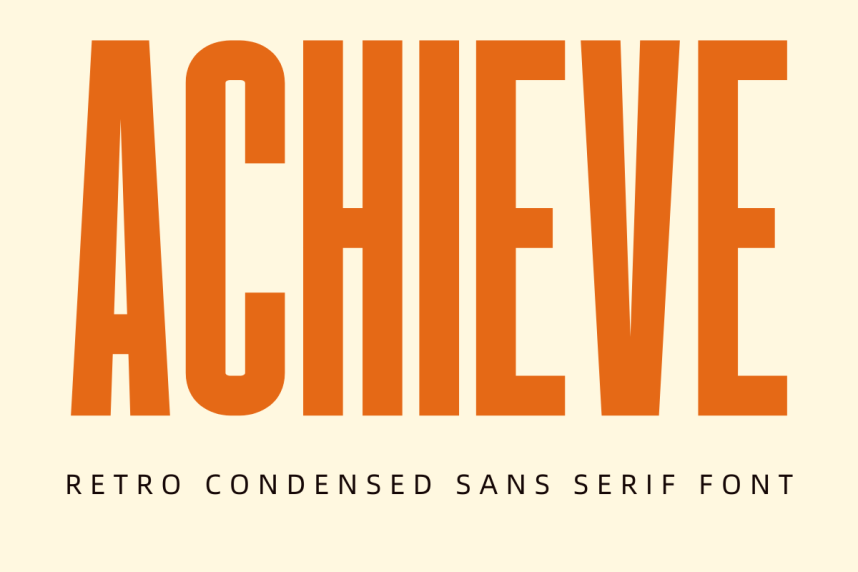
Achieve Font is a bold and modern sans serif choice. It features clean lines and a strong geometric structure. This font is built for impact and clear communication.
Its confident style commands attention in any layout. The letterforms are highly readable at any size. It is a superb pick for tech startups and corporate websites.
Achieve brings a sense of professionalism and innovation. The font family includes various weights for flexibility. Create dynamic contrasts in your marketing materials.
This typeface excels in both digital and print media. It delivers a crisp and trustworthy appearance. Use it for presentations, annual reports, and mobile apps.
The minimalist design ensures your message is always clear. It supports a wide range of languages and characters. Achieve Font helps you build a strong visual identity.
Type Confident Geometric Sans Serif
Best For Tech Logos & Corporate Reports
Unique Feature Optimized for Web & App UI Readability
Choose Achieve for a clean and powerful typographic voice. It is the reliable foundation for any serious brand. Boost your content with this contemporary workhorse.